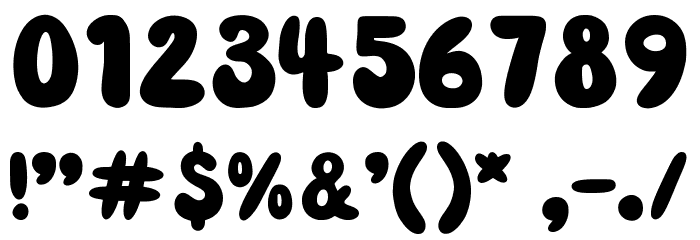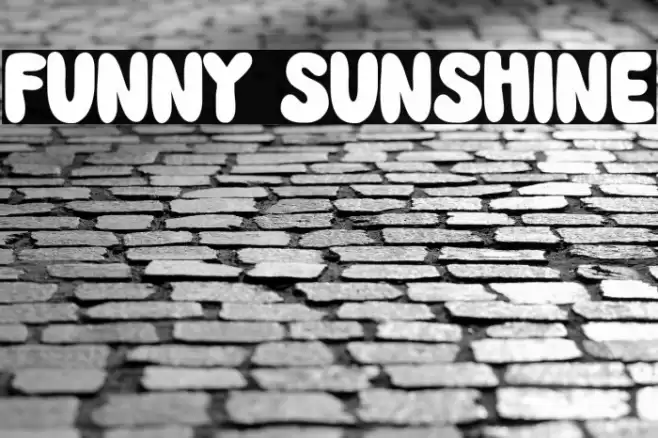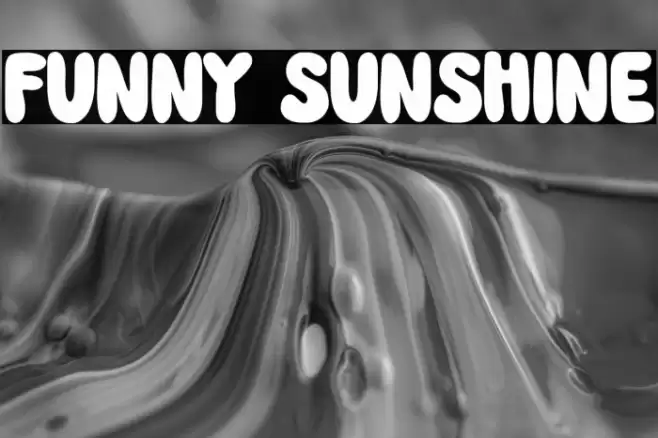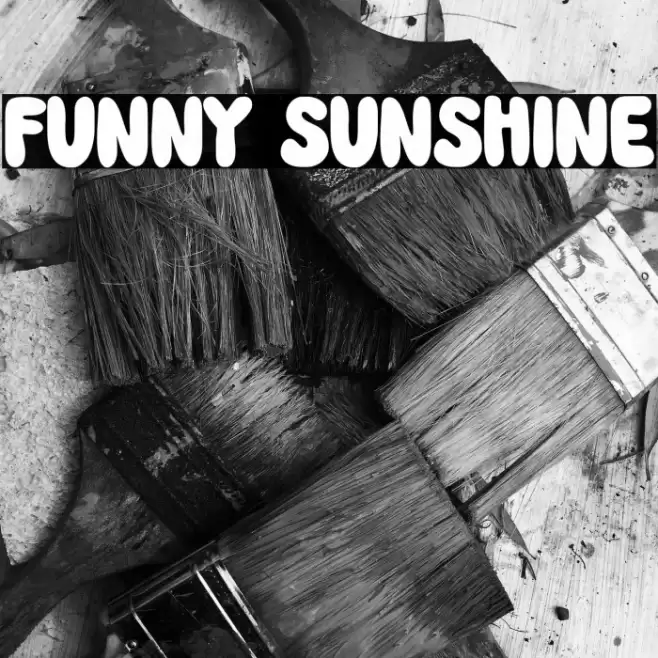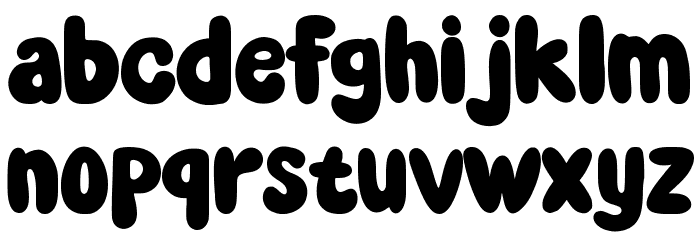
FUNNY SUNSHINE Font
FUNNY SUNSHINE Description
This playful and bold font features rounded, bubbly characters that convey a sense of fun and whimsy. The letters are thick and have a uniform stroke width, giving them a cartoonish and approachable appearance. The uppercase and lowercase letters maintain a consistent style, with smooth curves and a slightly exaggerated form. Numbers and special characters are designed to match the playful aesthetic, making them suitable for informal and lighthearted contexts. The font's overall look is reminiscent of hand-drawn lettering, adding a personal and friendly touch to any design.
| Overall Style | Playful, Cartoonish |
| Proposed Projects | Ideal for children's books, party invitations, playful branding, and social media graphics. |